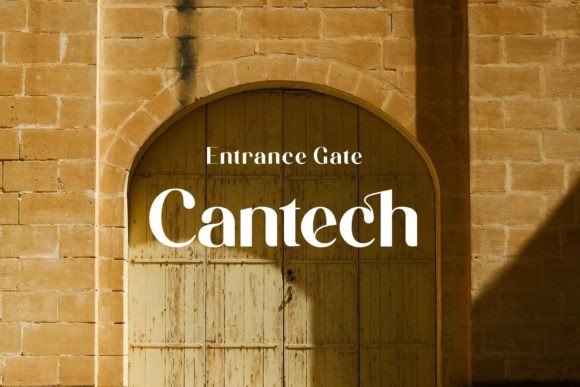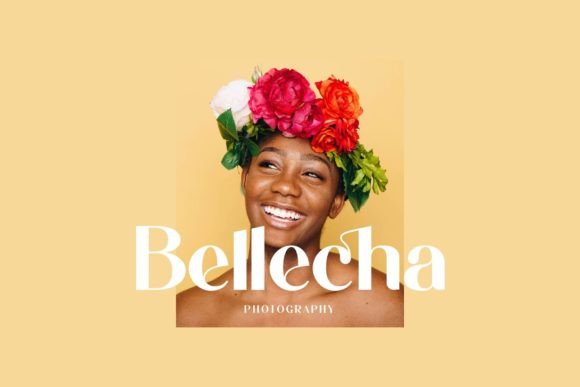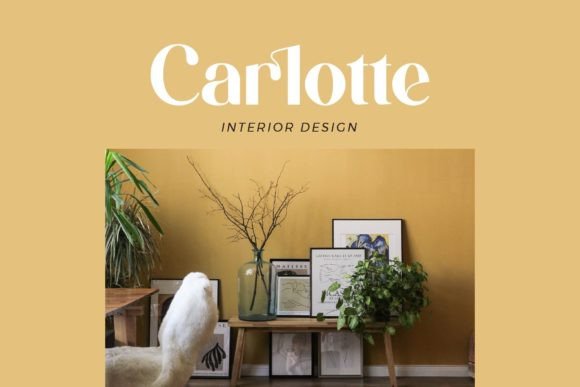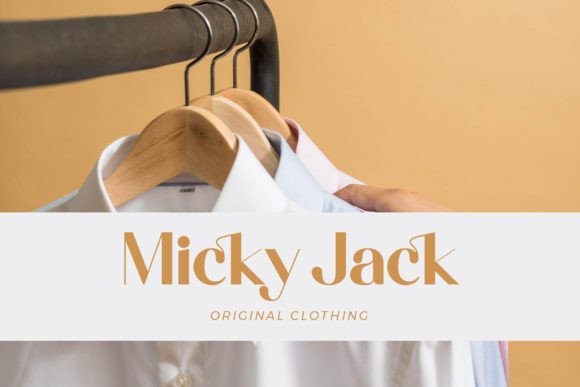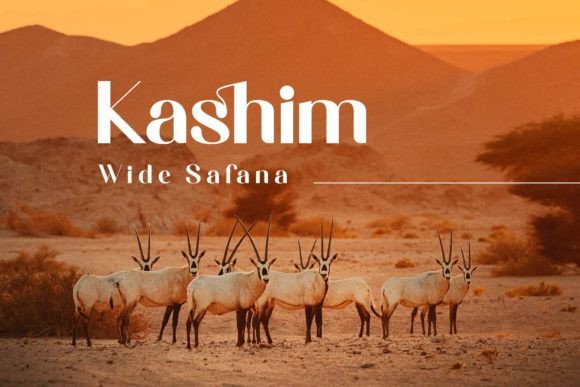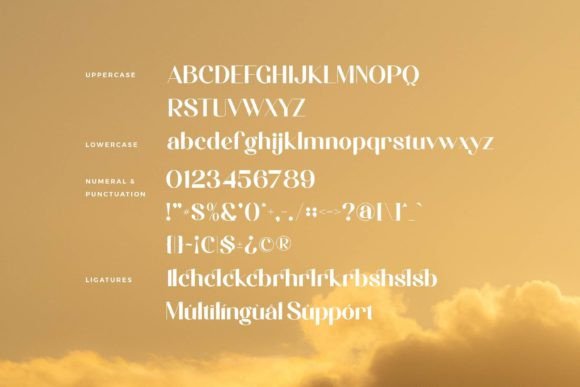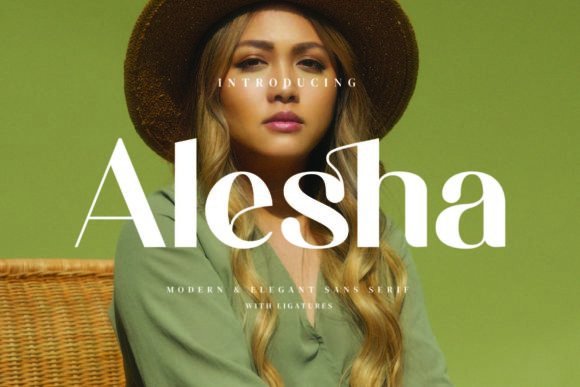
Alesha Font: The Ultimate Minimalist Choice for Designers and Crafters
In the world of design, typography plays a crucial role in conveying messages, evoking emotions, and creating visual identities. When it comes to minimalist design, a font can make all the difference. Alesha Font, inspired by the famous minimalist logo, is a game-changer for designers and crafters looking for a perfect blend of simplicity and elegance. In this article, we’ll explore the features, benefits, and uses of Alesha Font, and why it’s an excellent choice for various design projects.
The Inspiration Behind Alesha Font
Alesha Font draws inspiration from the minimalist logo design movement, which emphasizes simplicity, clean lines, and a limited color palette. The font’s creator aimed to capture the essence of this design philosophy, making Alesha Font an ideal choice for designers who appreciate the beauty of minimalism. With its sleek and modern appearance, Alesha Font is perfect for creating visually stunning designs that exude sophistication and elegance.
Key Features of Alesha Font
Alesha Font boasts several key features that make it an attractive choice for designers and crafters:
- Clean and Simple Design: Alesha Font features clean lines, simple shapes, and a minimalist approach, making it perfect for designs that require a subtle yet impactful touch.
- High Versatility: Alesha Font is highly versatile, suitable for various design projects, including templates, brochures, videos, advertising branding, logos, invitations, and more.
- Elegant and Sophisticated: The font’s elegant and sophisticated appearance makes it ideal for beauty design, crafting, and other projects that require a touch of luxury.
- Easy to Read: Alesha Font is designed to be easy to read, even at small font sizes, making it perfect for body text and captions.
Uses of Alesha Font
Alesha Font is an excellent choice for various design projects, including:
- Template Design: Create stunning templates for brochures, flyers, and other marketing materials with Alesha Font.
- Branding and Advertising: Use Alesha Font to create visually appealing branding and advertising materials that exude elegance and sophistication.
- Logo Design: Alesha Font is perfect for creating minimalist logos that make a lasting impression.
- Video Production: Add a touch of elegance to your videos with Alesha Font, ideal for titles, subtitles, and captions.
- Crafting and Beauty Design: Use Alesha Font to create beautiful and elegant designs for crafting, beauty, and lifestyle projects.
Benefits of Using Alesha Font
By choosing Alesha Font for your design projects, you can enjoy several benefits:
- Unique and Modern Design: Alesha Font offers a fresh and modern take on minimalist design, setting your projects apart from the rest.
- Time-Saving: With Alesha Font, you can create professional-looking designs quickly and efficiently, saving you time and effort.
Alesha Font is an exceptional choice for designers and crafters seeking a minimalist font that exudes elegance and sophistication. With its clean design, high versatility, and easy readability, Alesha Font is perfect for various design projects, from templates and branding to logos and video production. By incorporating Alesha Font into your design workflow, you can create visually stunning projects that leave a lasting impression.